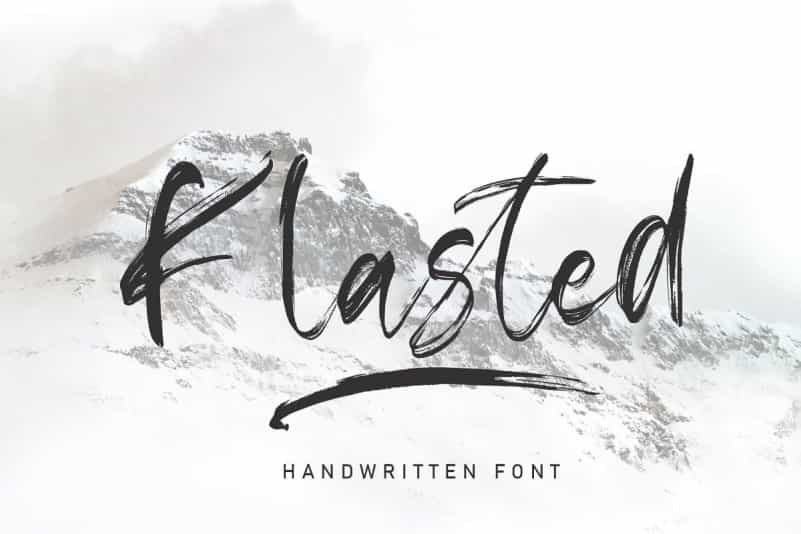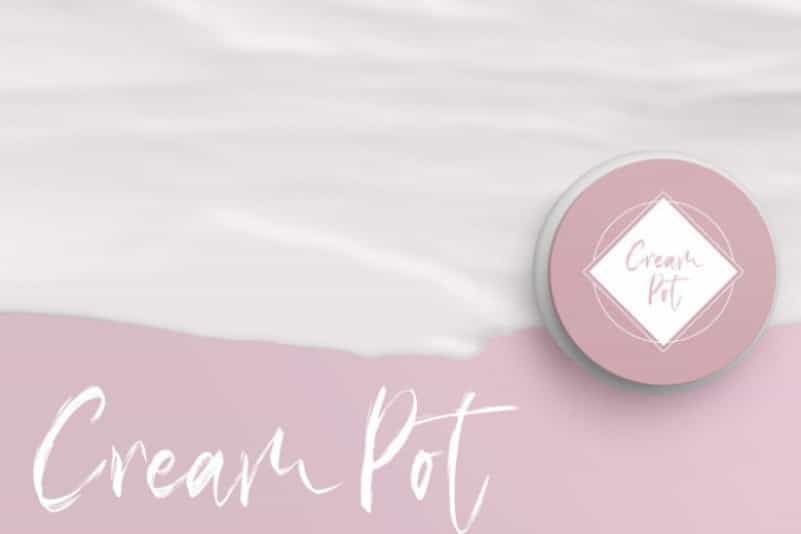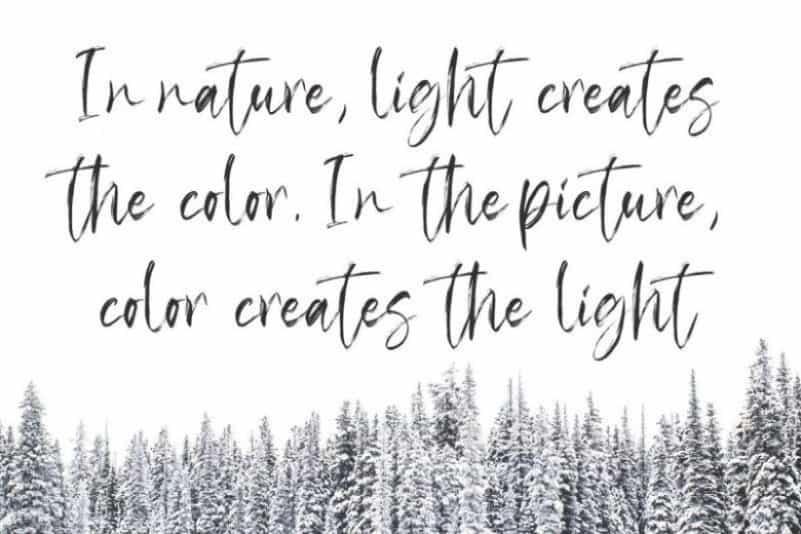
Klasted Font is an informal and playful handwritten brush script font. It is mostly used in mood boards, logos, blog posts, scrapbooking designs and invitations due to its free style.